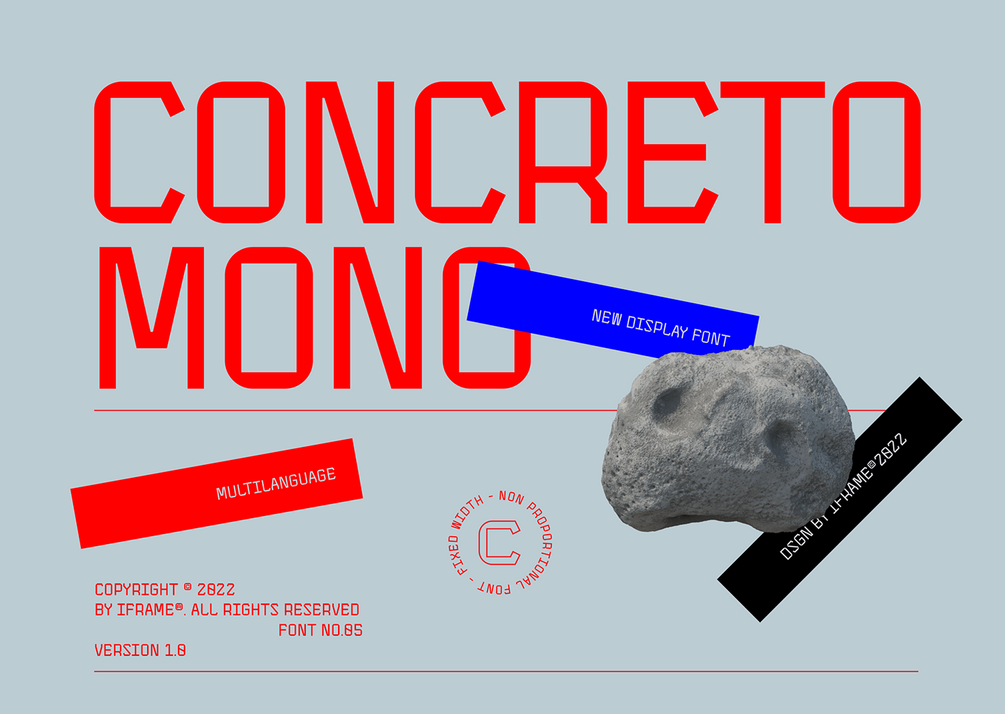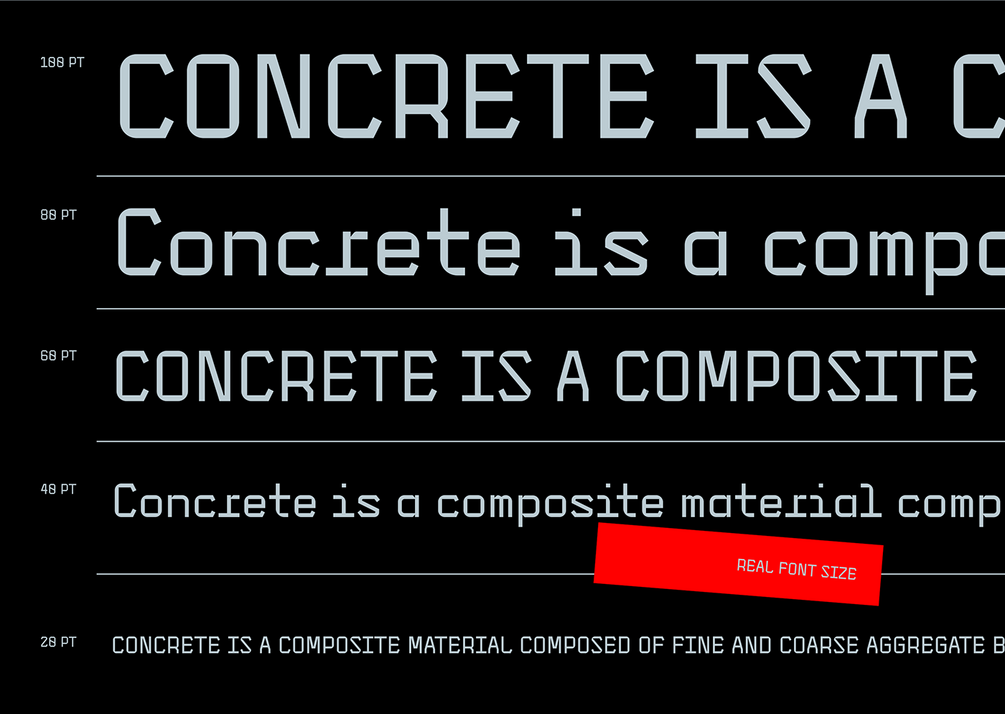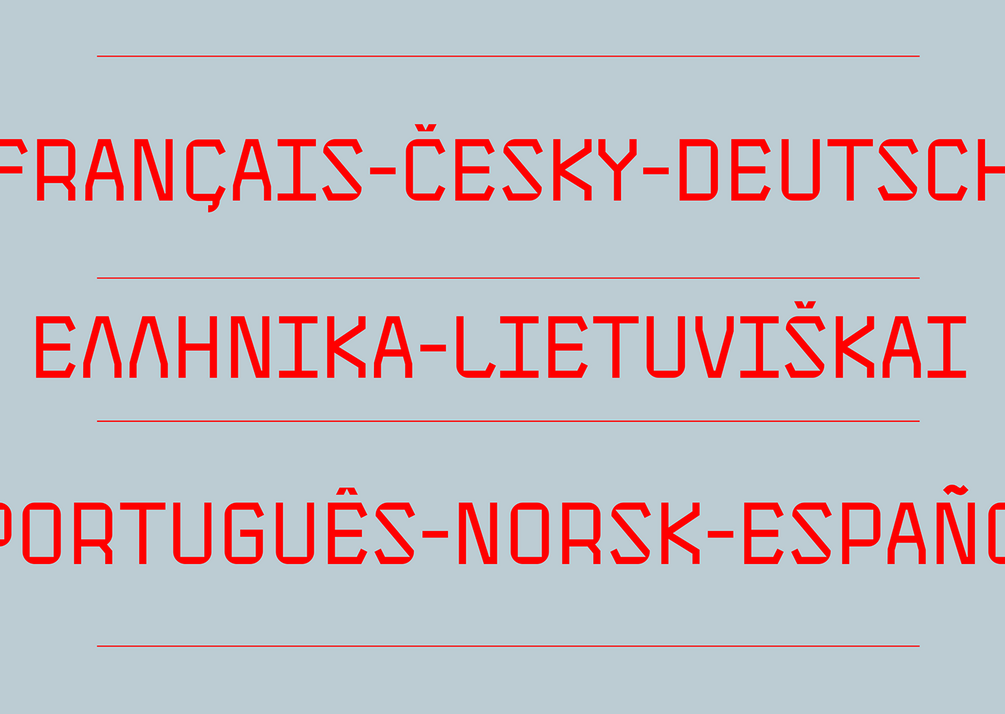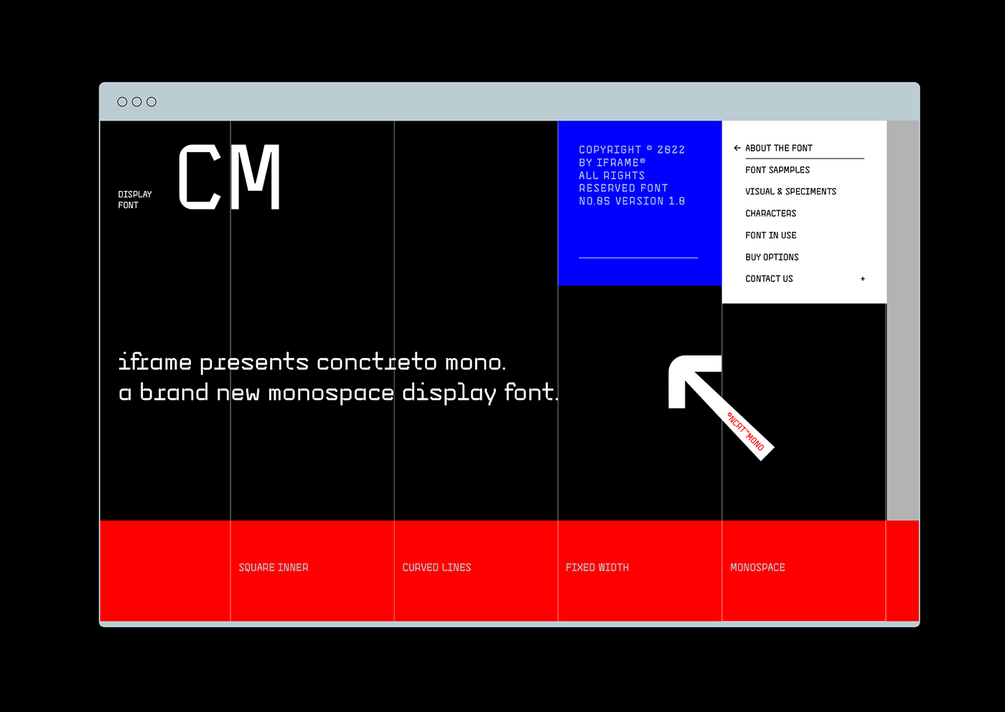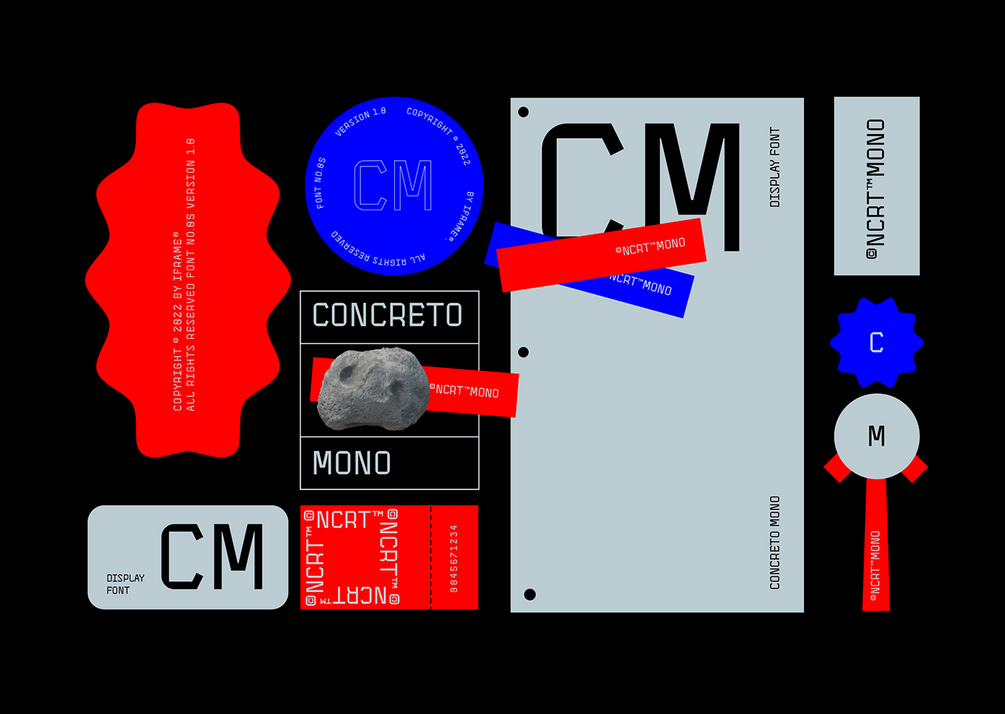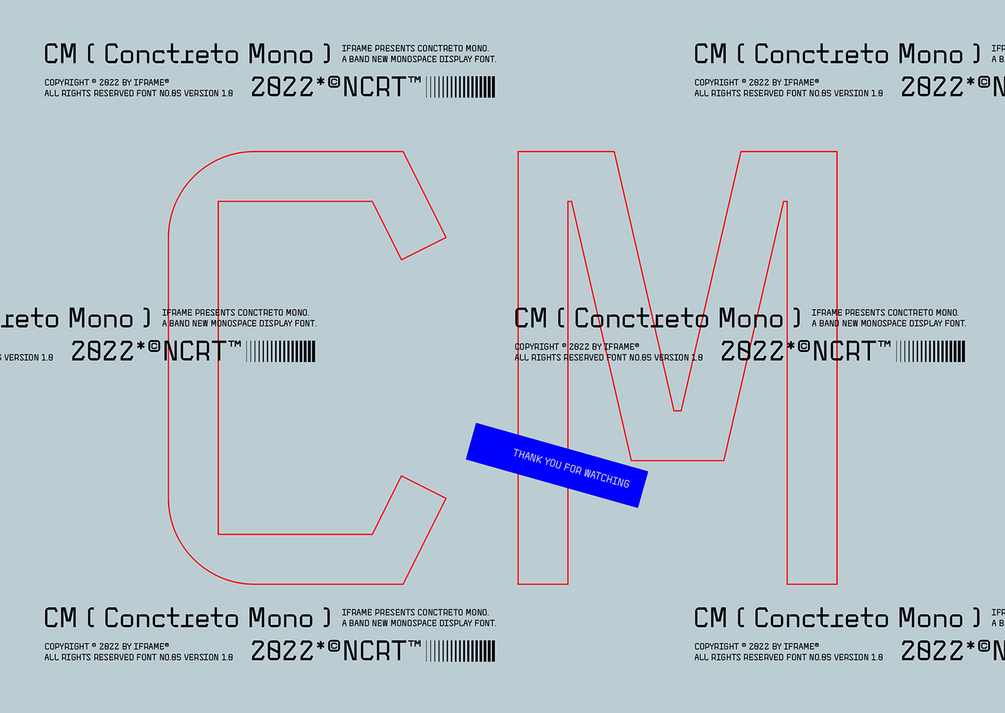
Concreto Mono Font
Concreto Mono is a monospaced san serif, built in regular style. The word concrete comes from the Latin word "concretus" meaning compact.
Concreto Mono is released in OpenType format with support for most languages.
Features:
_ Multilanguage Support
_ Letters Uppercase + Lowercase
_ Glyphs
_ Numbers